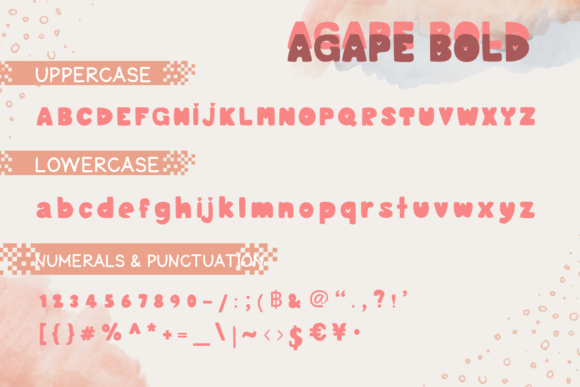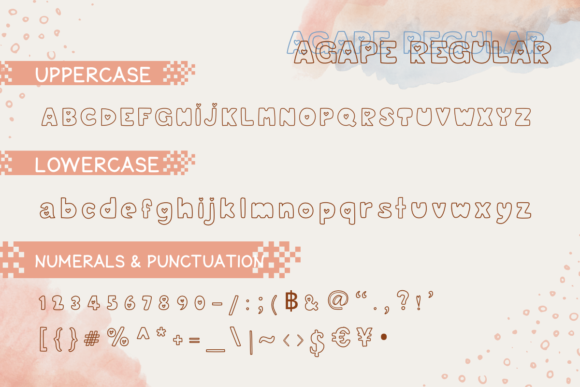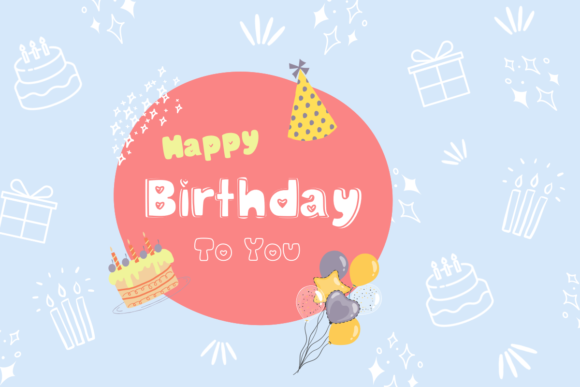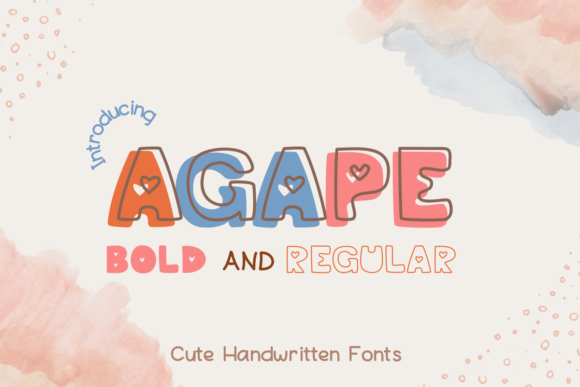
Agape Font: The Perfect Addition to Your Design Arsenal
Are you tired of using the same old fonts in your designs? Look no further than the Agape Font, a fun and adorable display font that’s sure to make your creations stand out. With its thick, yet cute lettering, Agape is perfect for a variety of design projects, from Valentine’s Day cards to wedding invitations and more.
What is Agape Font?
Agape Font is a unique and versatile display font that features two versions: one solid and one transparent. This allows you to get creative with your designs by stacking both versions on top of each other, creating a stunning and eye-catching effect. Whether you’re a designer, crafter, or simply someone who loves to dabble in DIY projects, Agape Font is a must-have in your font collection.
Key Features of Agape Font
• Two font versions: Agape Font comes with two versions: one solid and one transparent. This allows you to experiment with different design combinations and create unique visual effects.
• Thick and cute lettering: Agape Font features thick, yet adorable lettering that’s perfect for creating eye-catching designs.
• High-quality design: Agape Font is designed with high-quality and clarity in mind, ensuring that your designs look professional and polished.
Uses for Agape Font
Agape Font is incredibly versatile and can be used for a wide range of design projects, including:
• Valentine’s Day cards: Create beautiful and romantic Valentine’s Day cards with Agape Font.
• Wedding invitations: Use Agape Font to create stunning wedding invitations that set the tone for your special day.
• Stationary art: Add a touch of elegance and sophistication to your stationary art with Agape Font.
• Social media posts: Use Agape Font to create eye-catching social media posts that grab attention and drive engagement.
• Crafting projects: Agape Font is perfect for a variety of crafting projects, from scrapbooking to card making.
Tips for Using Agape Font
Here are a few tips for getting the most out of Agape Font:
• Experiment with font combinations: Try pairing Agape Font with other fonts to create unique and interesting visual effects.
• Play with color: Agape Font looks great in a variety of colors, so don’t be afraid to experiment and find the perfect hue for your design.
• Use it sparingly: Agape Font is a bold and eye-catching font, so use it sparingly to avoid overwhelming your design.
In conclusion, Agape Font is a fun and versatile display font that’s perfect for designers and crafters of all skill levels. With its thick, yet cute lettering and two font versions, Agape Font is sure to add a touch of elegance and sophistication to your designs. Whether you’re creating Valentine’s Day cards, wedding invitations, or simply want to add some visual interest to your social media posts, Agape Font is a must-have in your font collection.